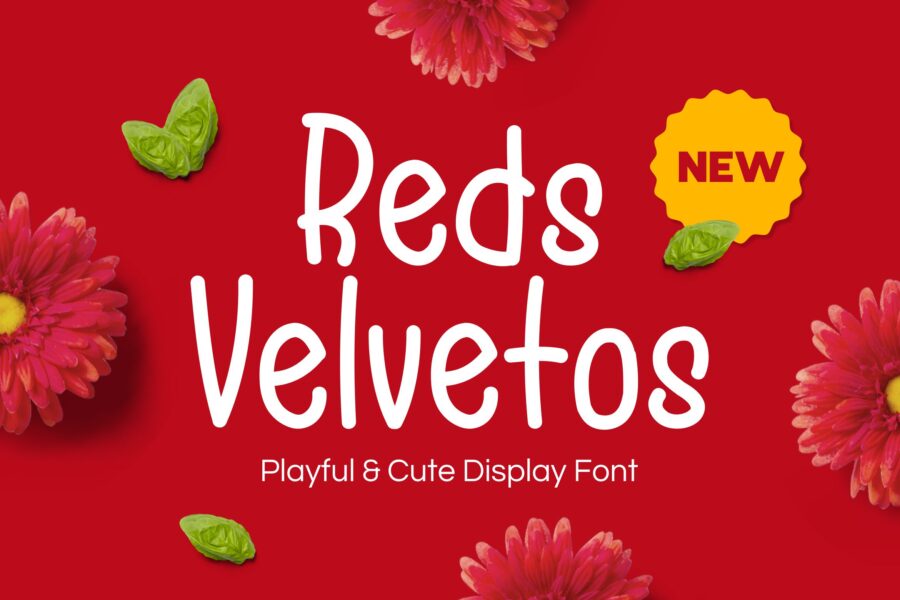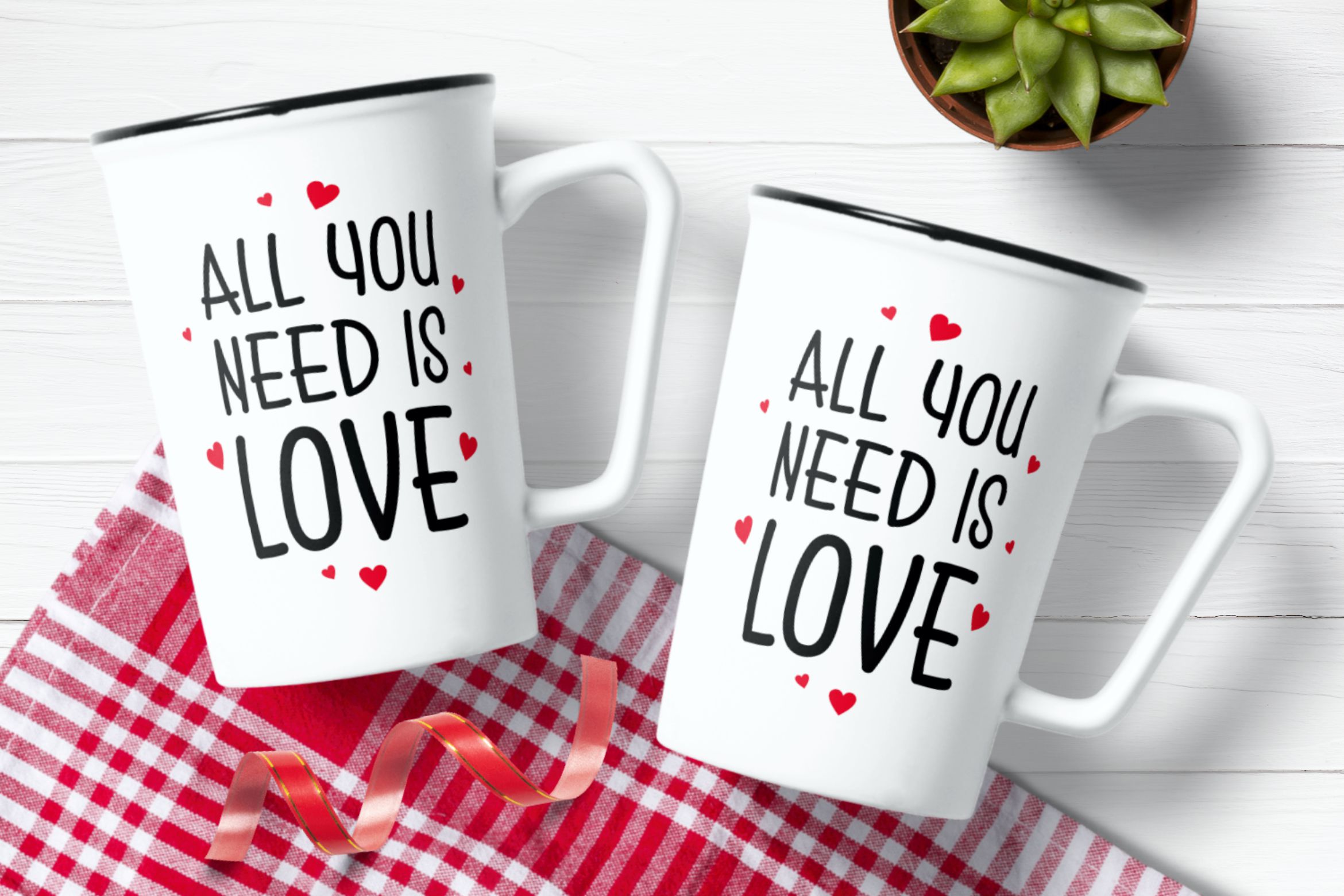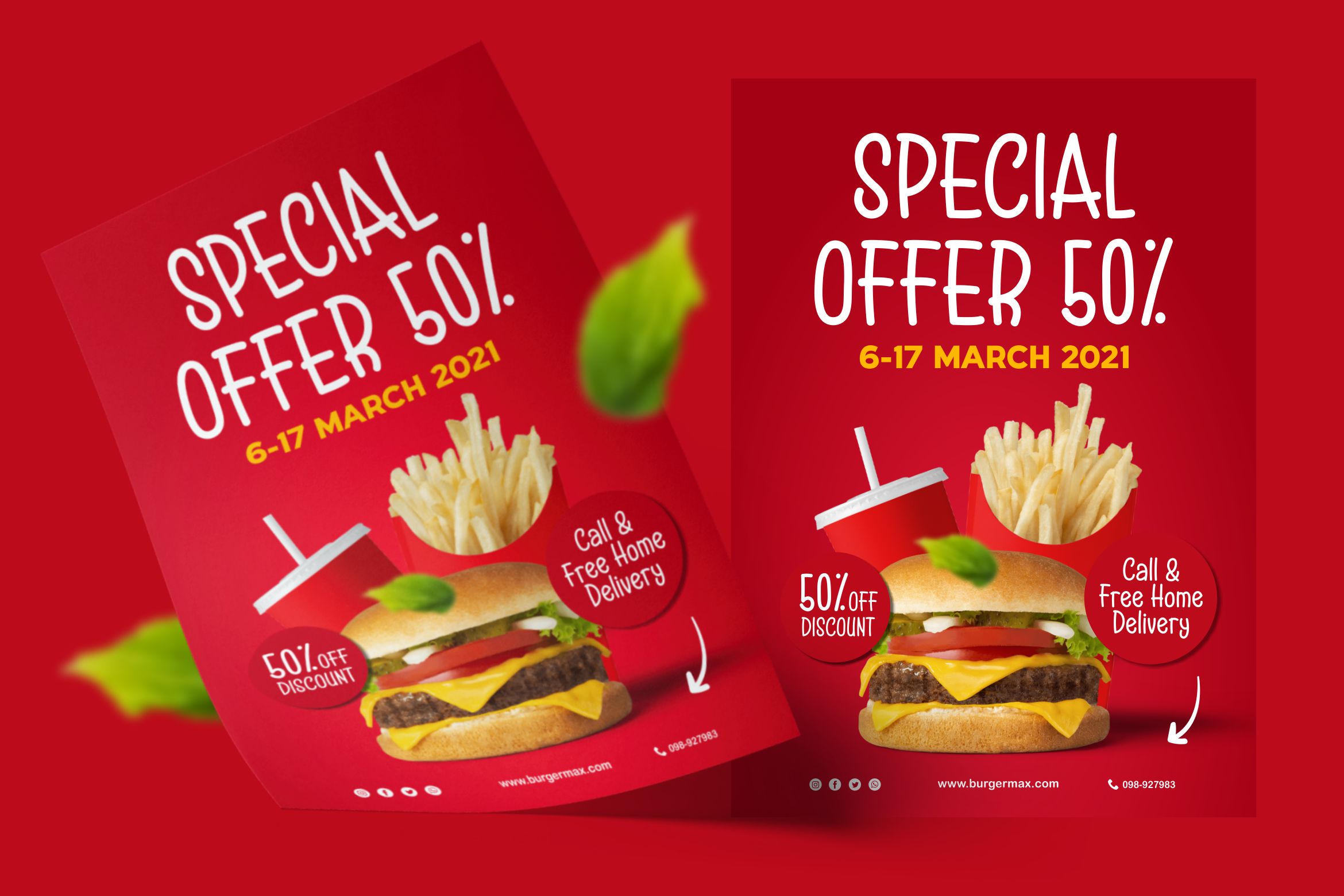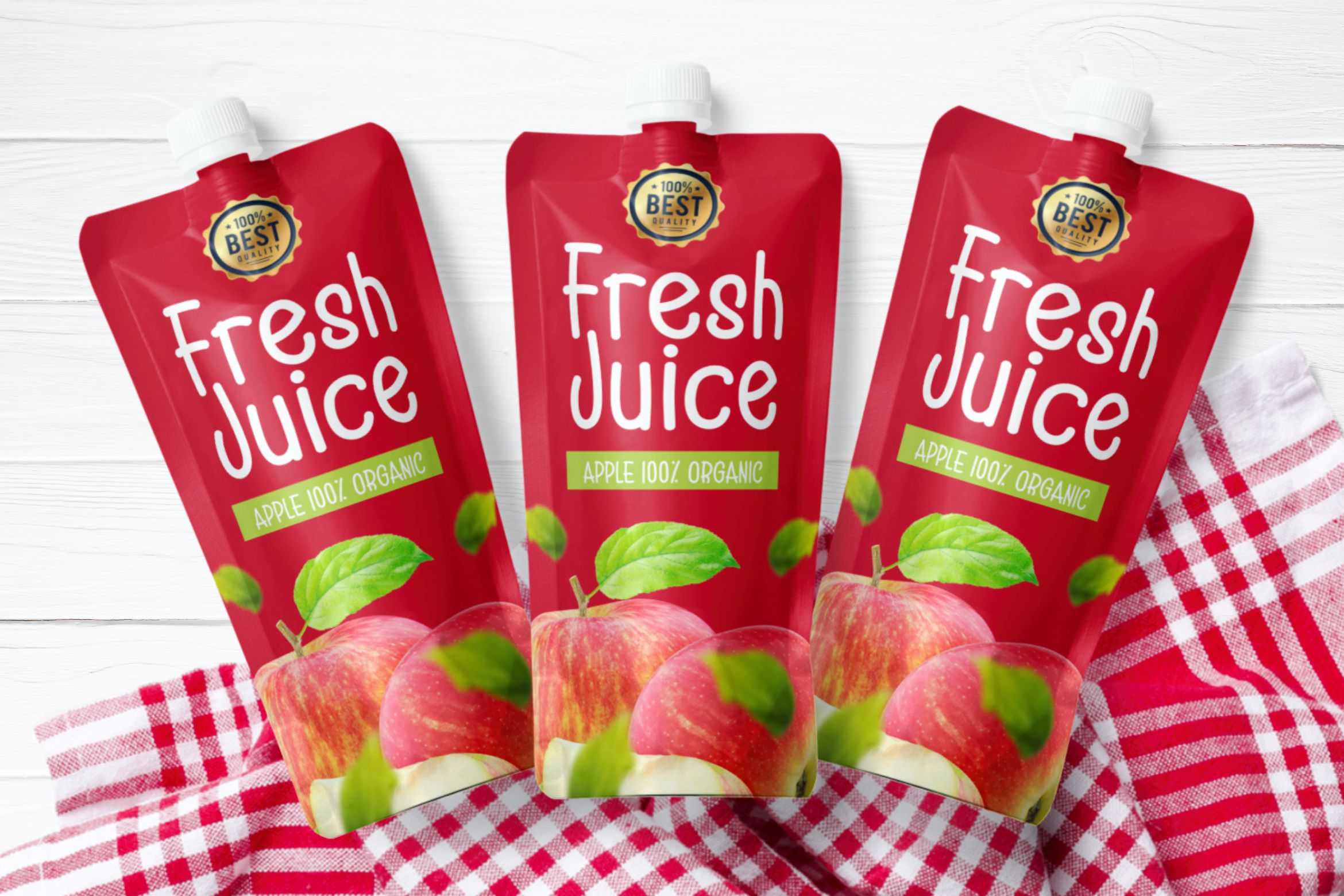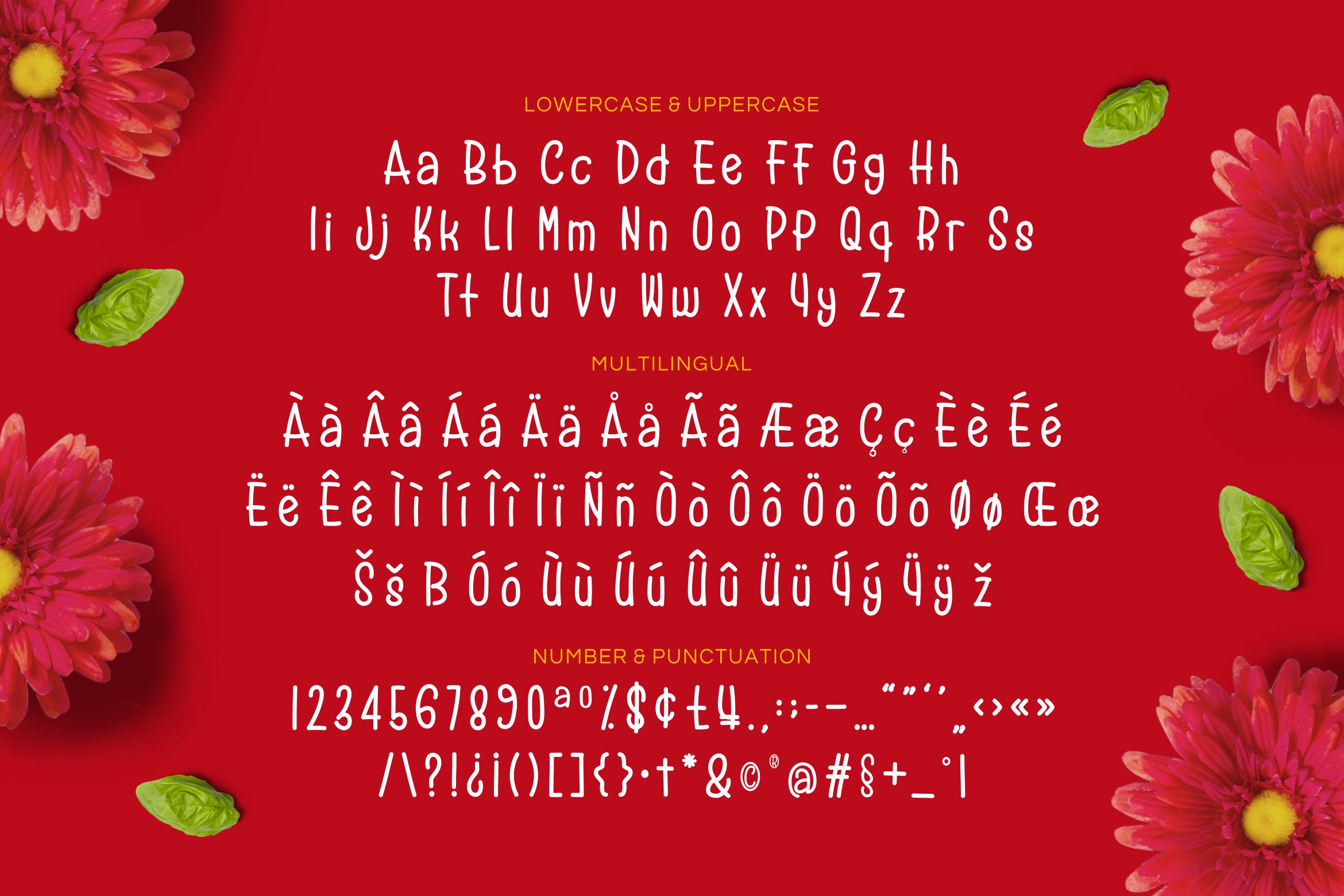
Reds Velvetos is a playful and charming display font that brings a warm, handmade feel to your creative projects. Its rounded, casual letterforms evoke a friendly and approachable personality, making it perfect for branding, packaging, posters, greeting cards, and anything that needs a dose of joy and fun. Whether you’re designing for food promotions or lifestyle merchandise, Reds Velvetos adds a sweet, personal touch.
With full support for multilingual characters, numbers, and a wide range of punctuation marks, this font is both expressive and versatile. The quirky style fits beautifully into children’s products, social media graphics, or product labels that aim to capture attention with a cute and lighthearted vibe.
Reds Velvetos